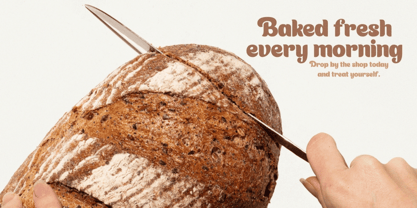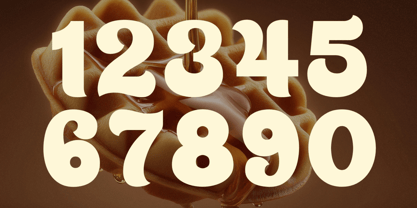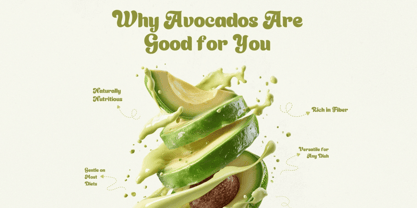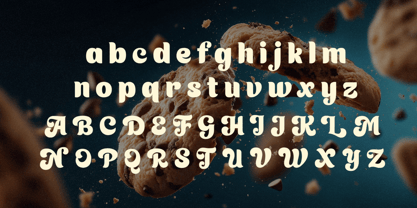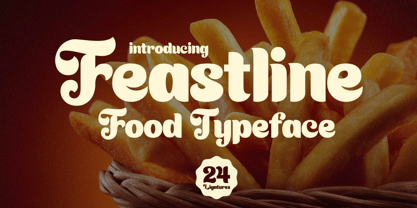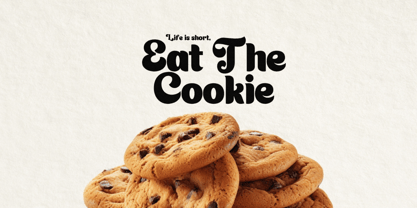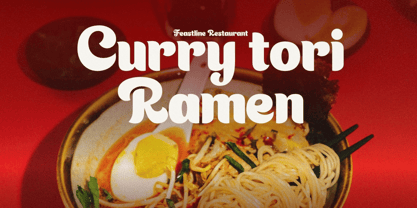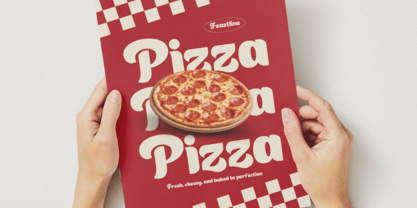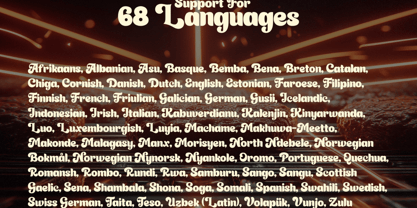
Feastline
La famille de polices Feastline a été conçue par Igor Ovsyannykov et publiée par Hipfonts. Feastline contient 1 styles. En savoir plus sur cette famille
Feastline is a warm, friendly display typeface inspired by the comforting world of food, cafés, bakeries, and bustling restaurants. Built with chunky shapes, soft curves, and inviting letterforms, this typeface instantly brings personality, flavor, and charm to any design.
Designed to feel handcrafted yet highly readable, Feastline captures the cozy atmosphere of fresh coffee, warm pastries, sizzling burgers, and handmade desserts. Its bold, rounded structure gives it a playful and approachable personality while still maintaining a clean, professional presence.
Feastline is perfect for restaurant branding, café logos, food trucks, menus, packaging, signage, product labels, social media promotions, and culinary merchandise. Whether you're building a rustic bakery identity, a modern burger brand, or playful dessert packaging, this typeface helps your designs feel deliciously memorable.
Crafted for both print and digital use, Feastline performs beautifully across everything from storefront signage to Instagram graphics.